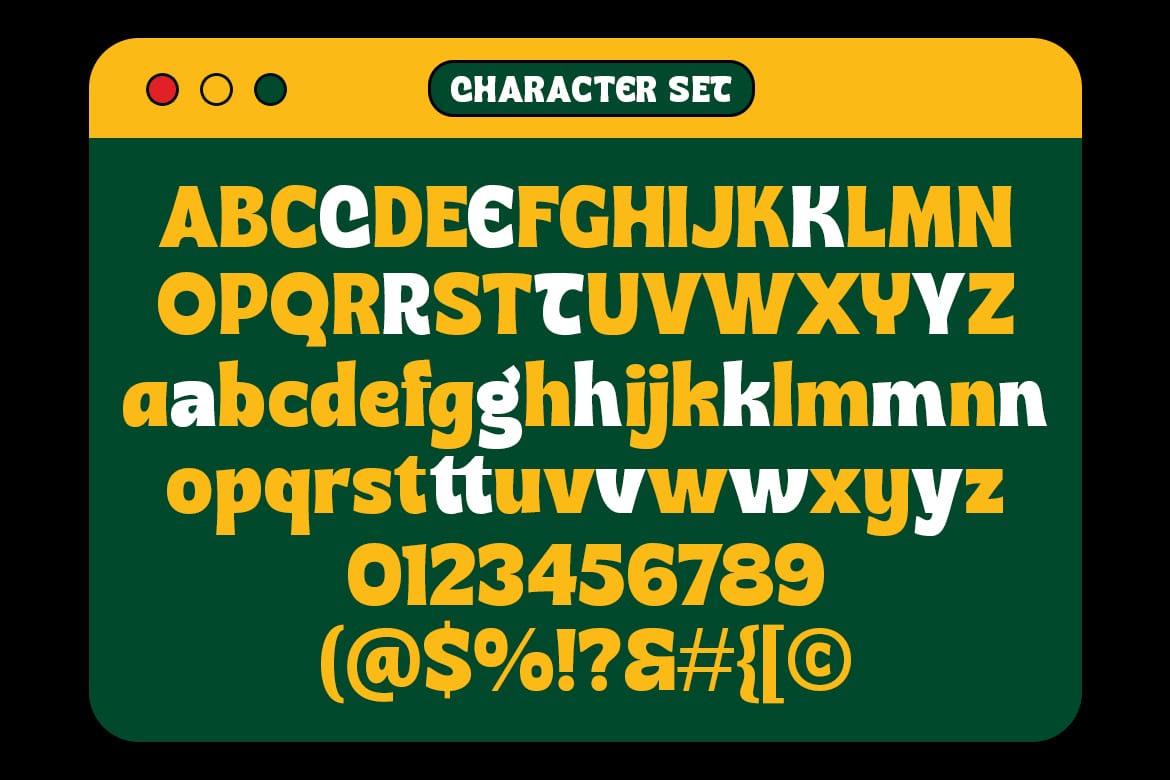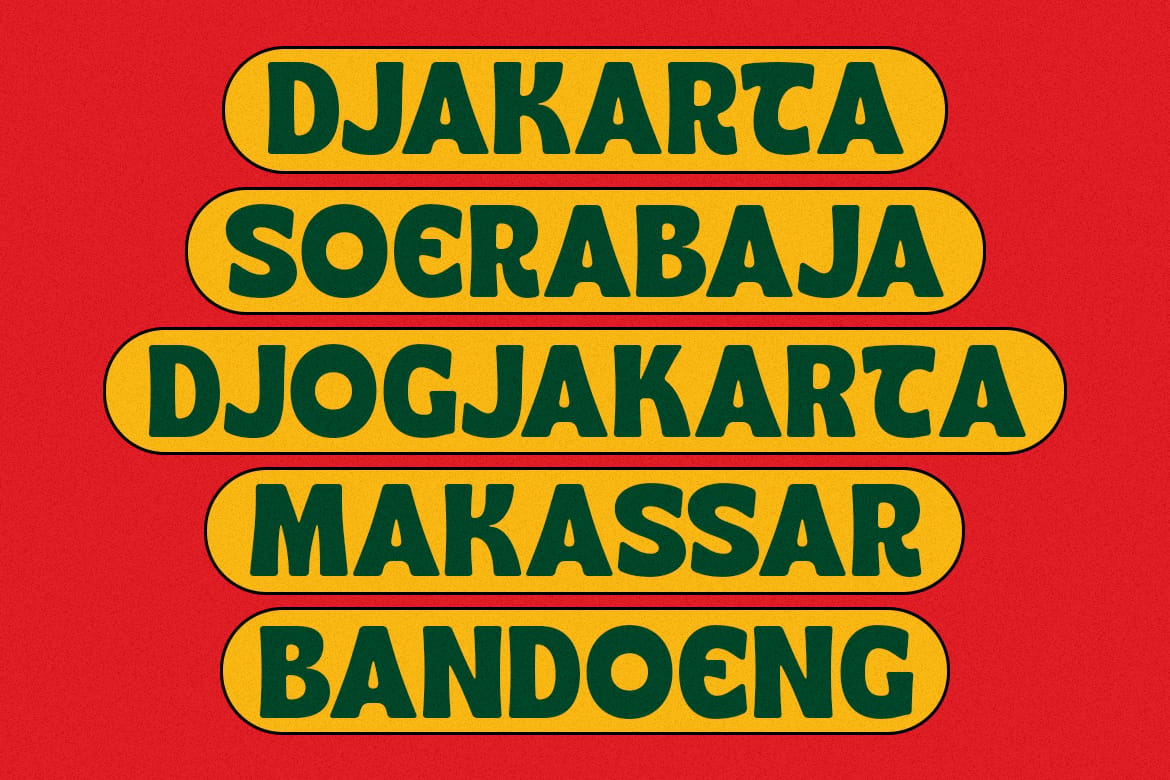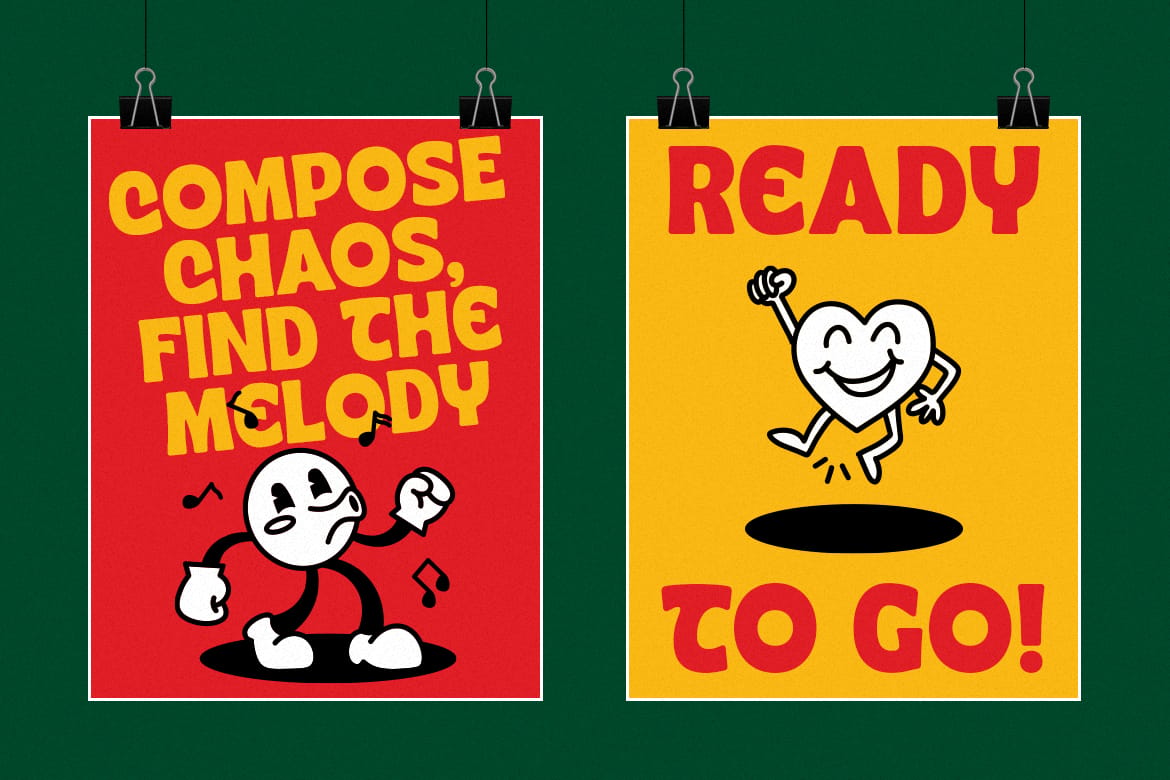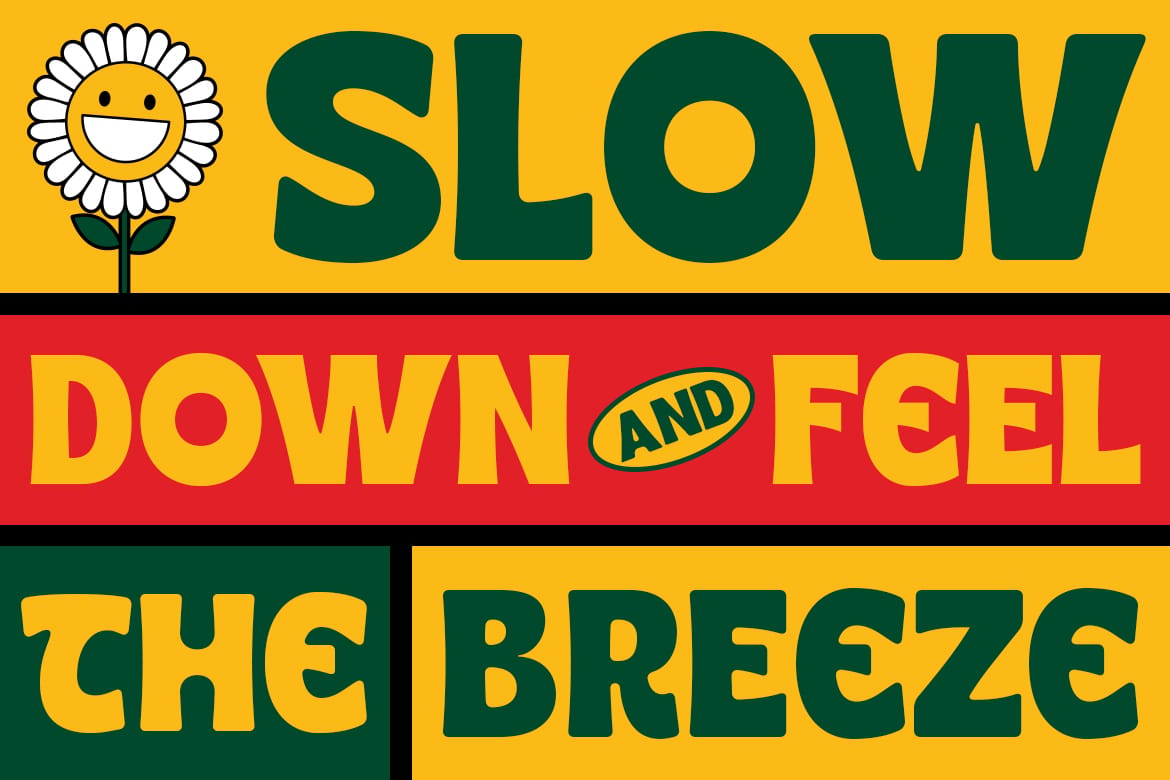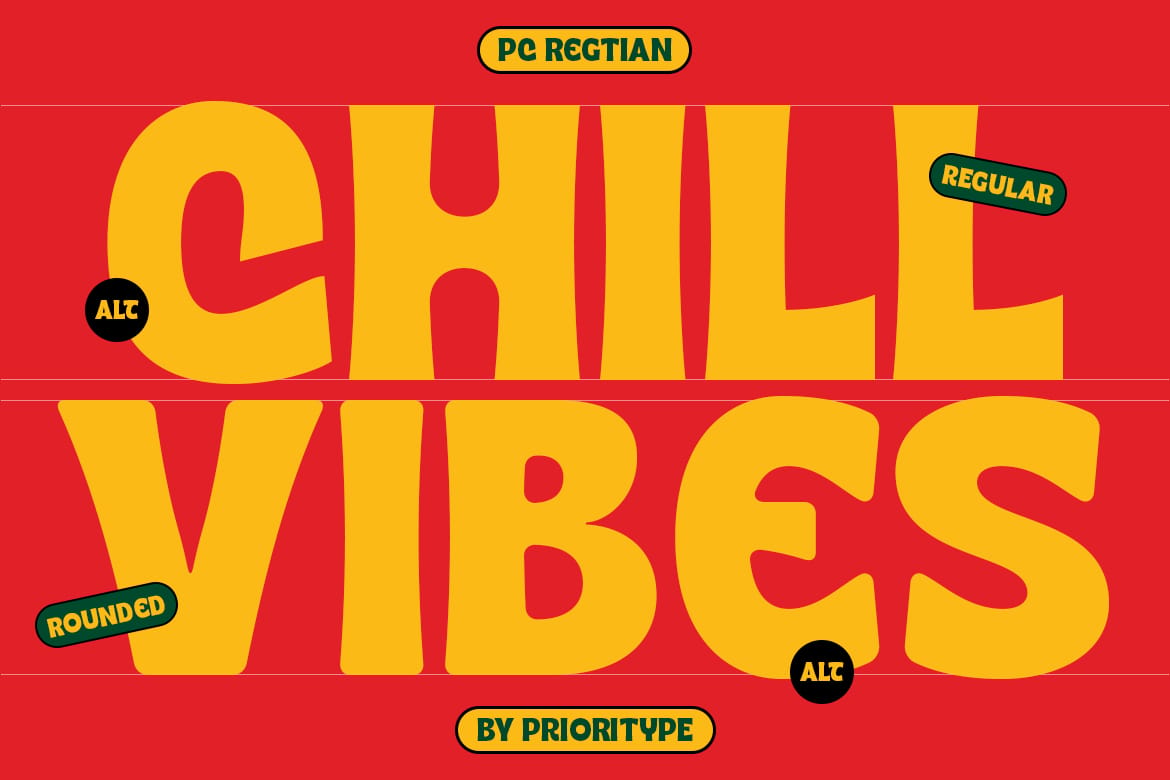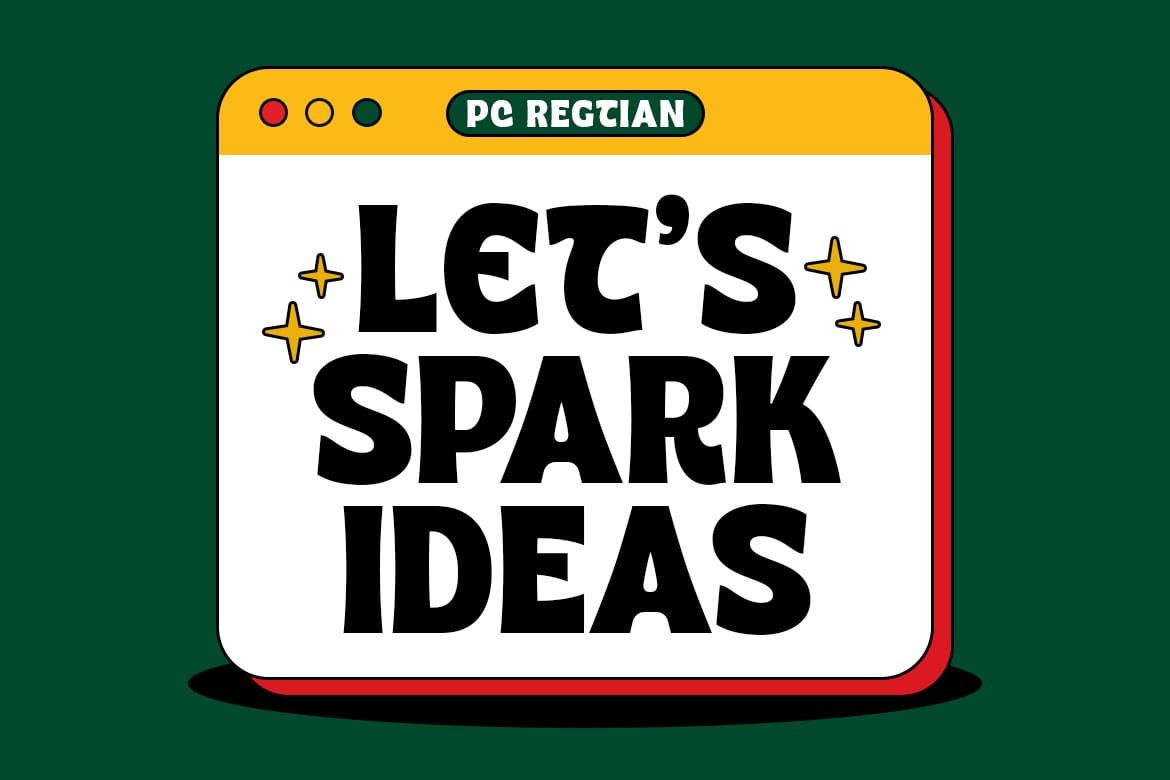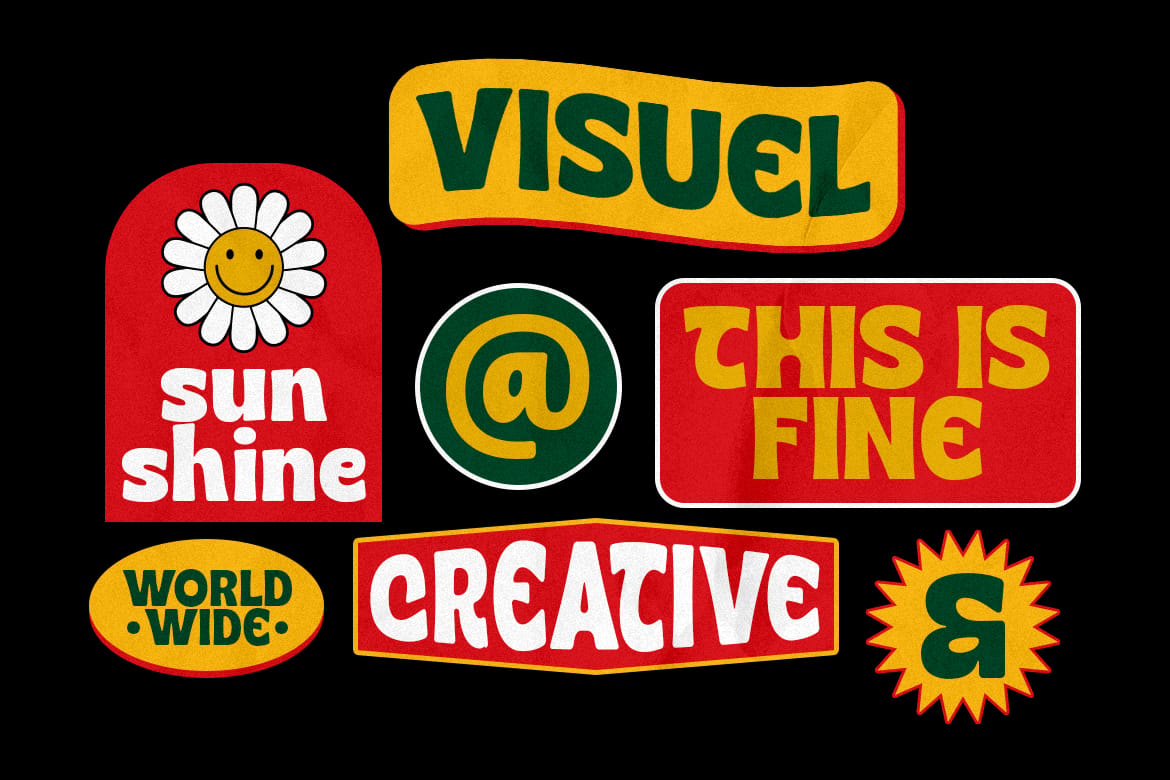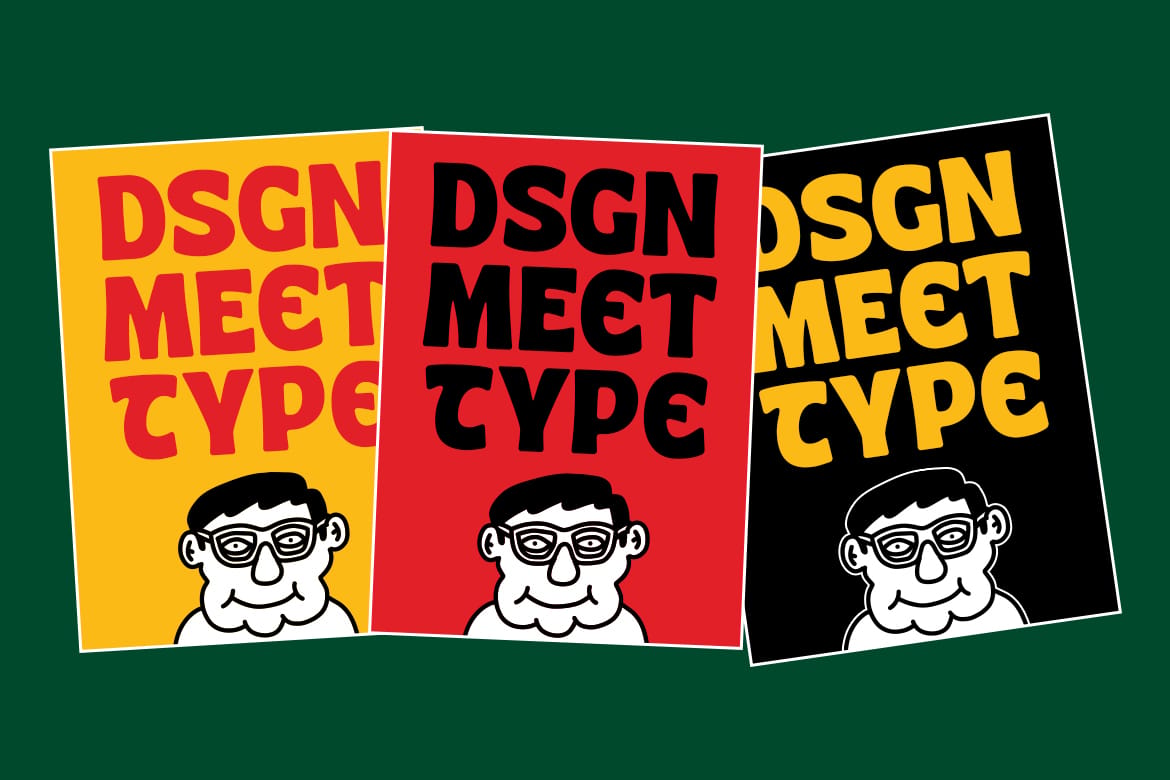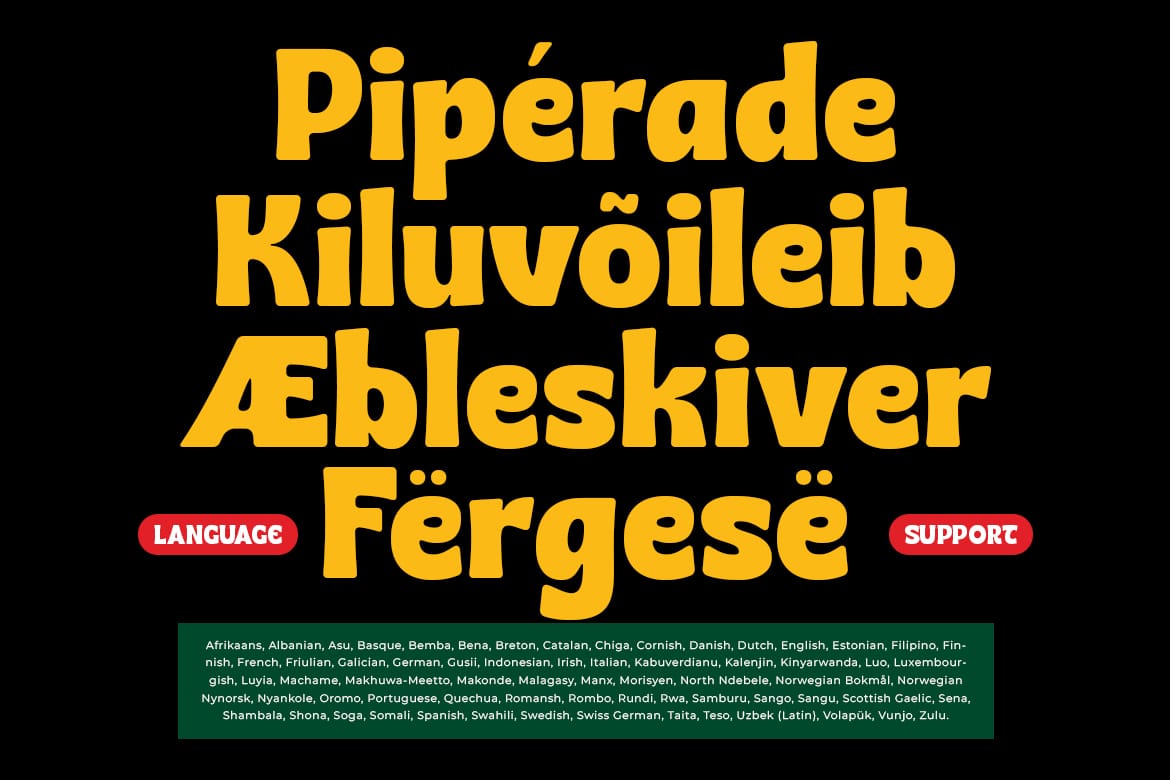
Introducing PC Regtian—a bold, attention-grabbing display font available in Regular and Rounded styles. With its unique letter alternates, this font adds a dynamic edge to your designs, making it perfect for posters, logos, and branding projects. Whether you're aiming for a modern look or something with a retro twist, Pc Regtian adapts effortlessly to your creative needs. Ready to go!
Features: Uppercase, Lowercase, Numeral, Punctuation, Multilingual & Alternates.
- Bold display: Regular and Rounded
- Unique letter alternates included
- Modern and retro, multilingual